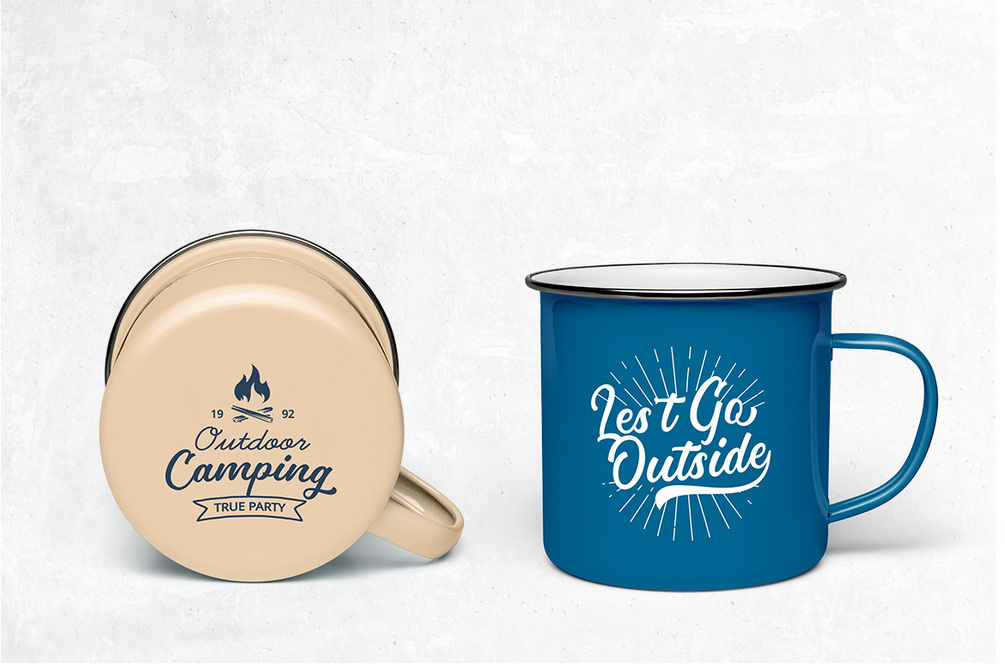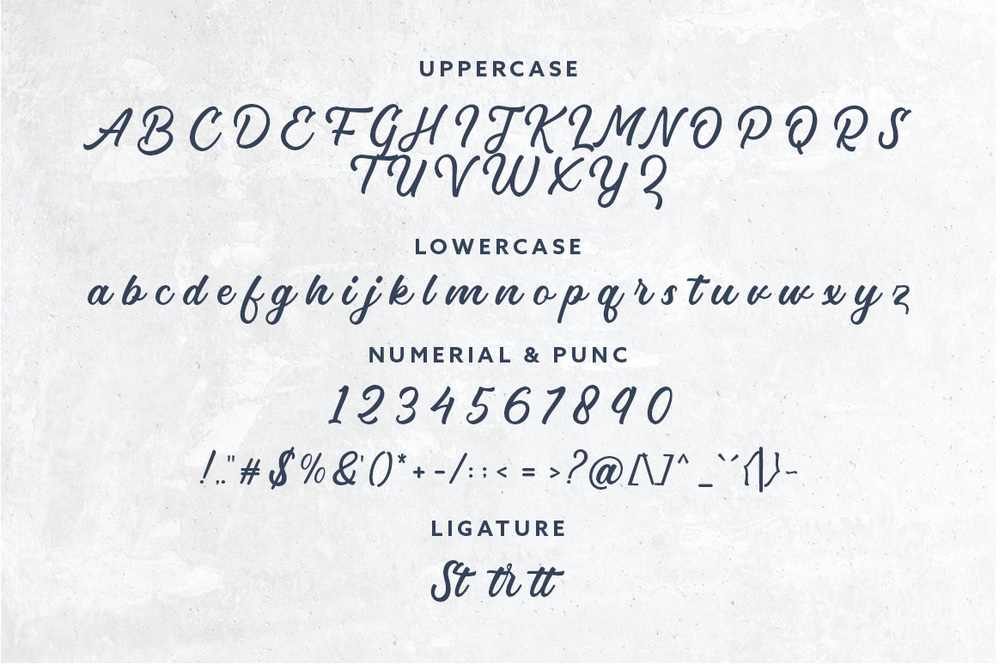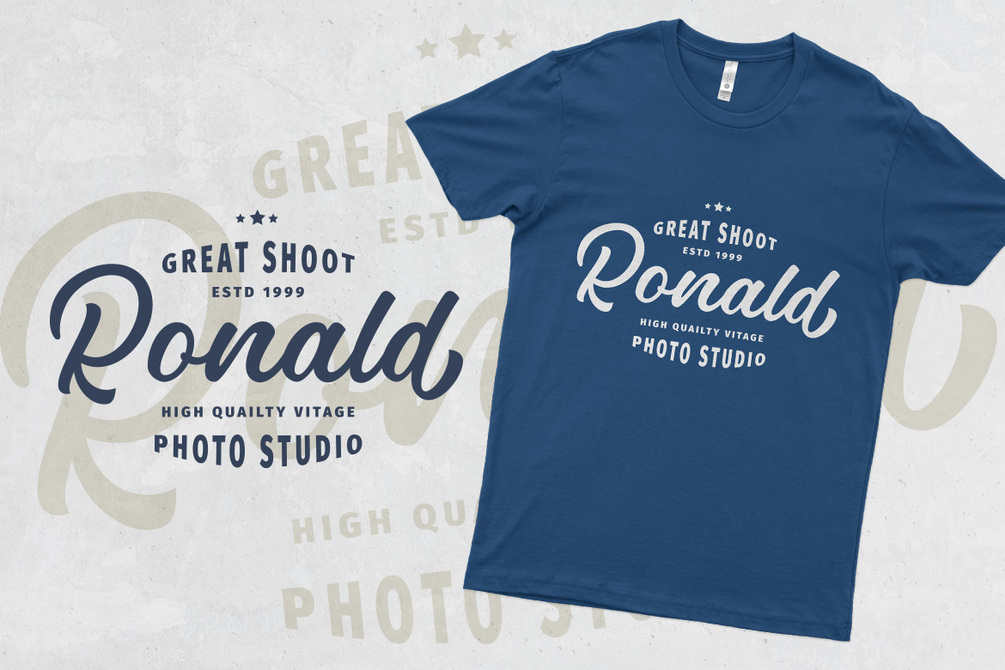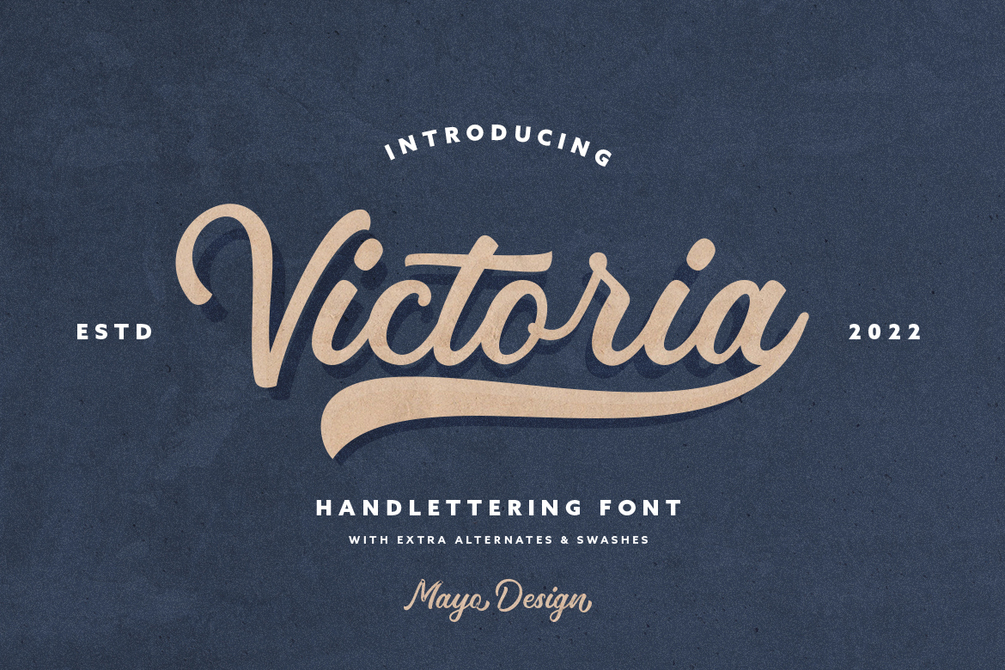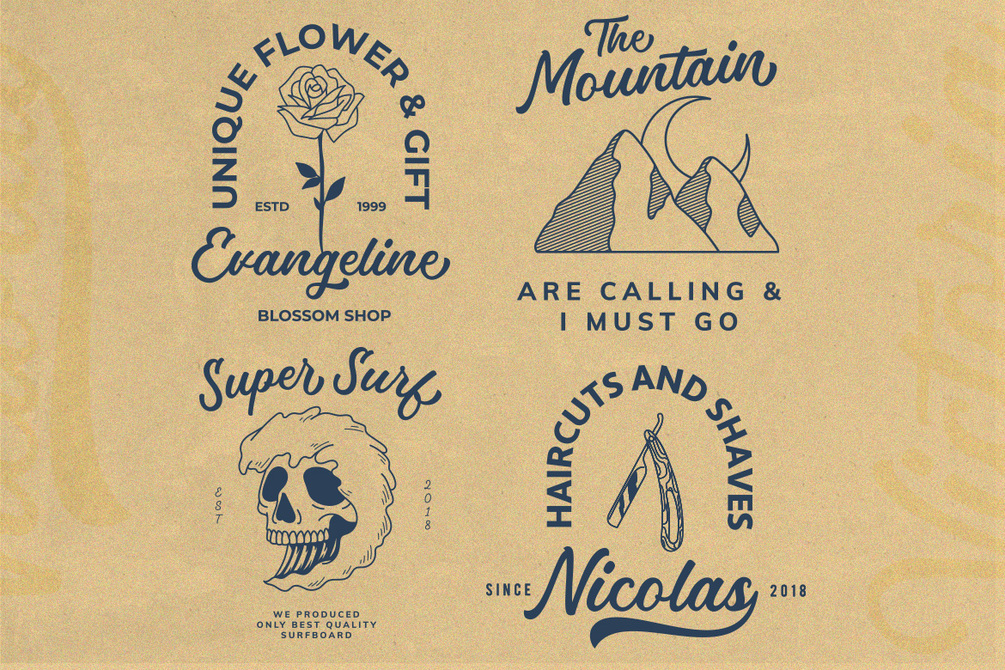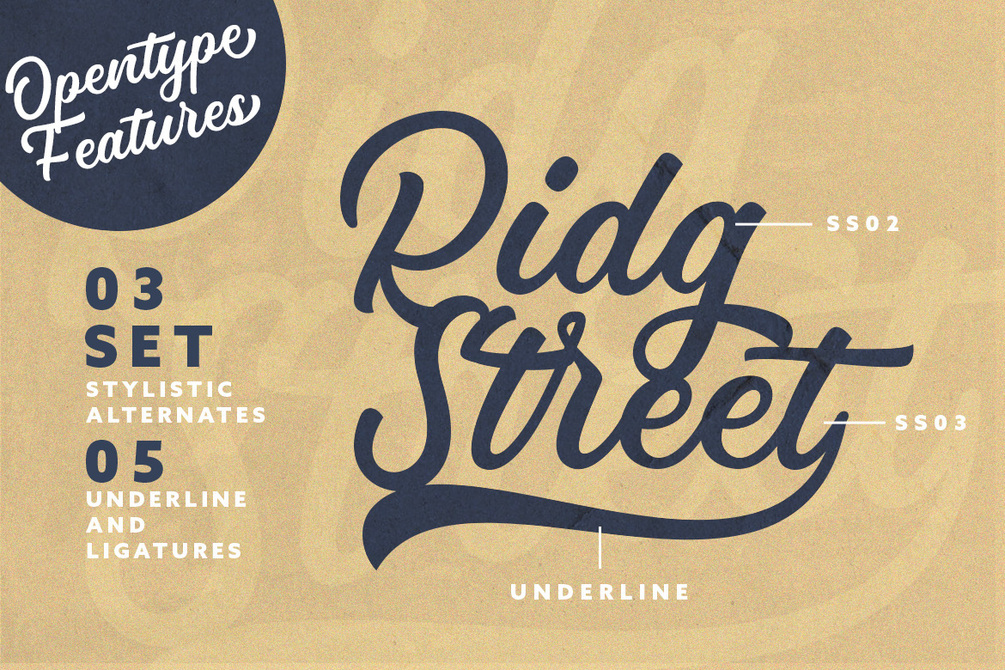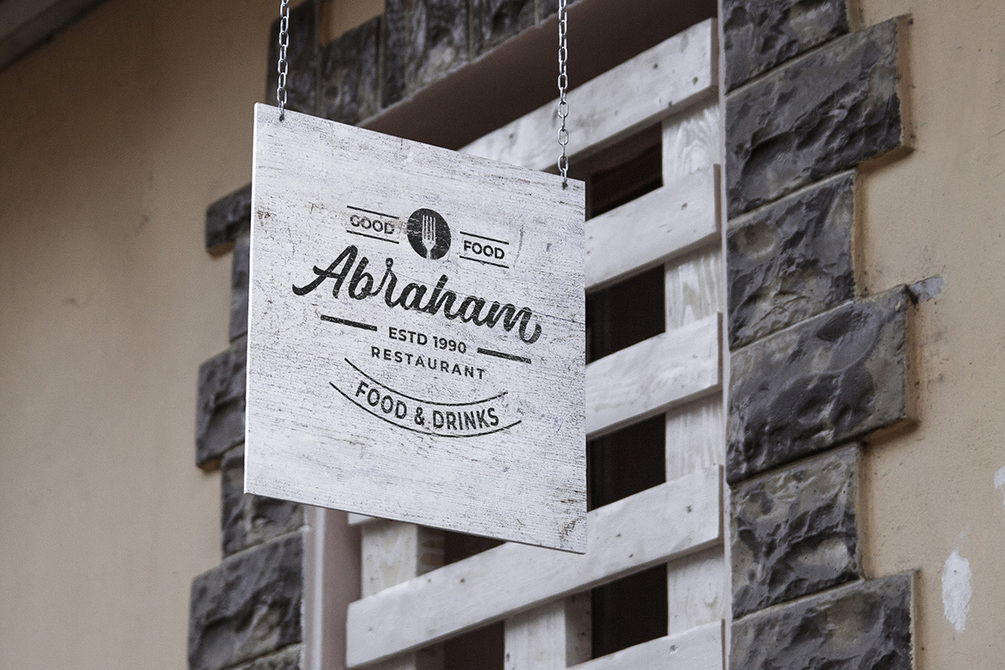
Victoria - Script Font
The Victoria font is script font with opentype features. You can use this font in a wide range of works such as logos, branding, covers, posters, quotes, product packaging, merchandise, social media and much more!
Feature :
• Alternate Glyphs
• Multilingual Language